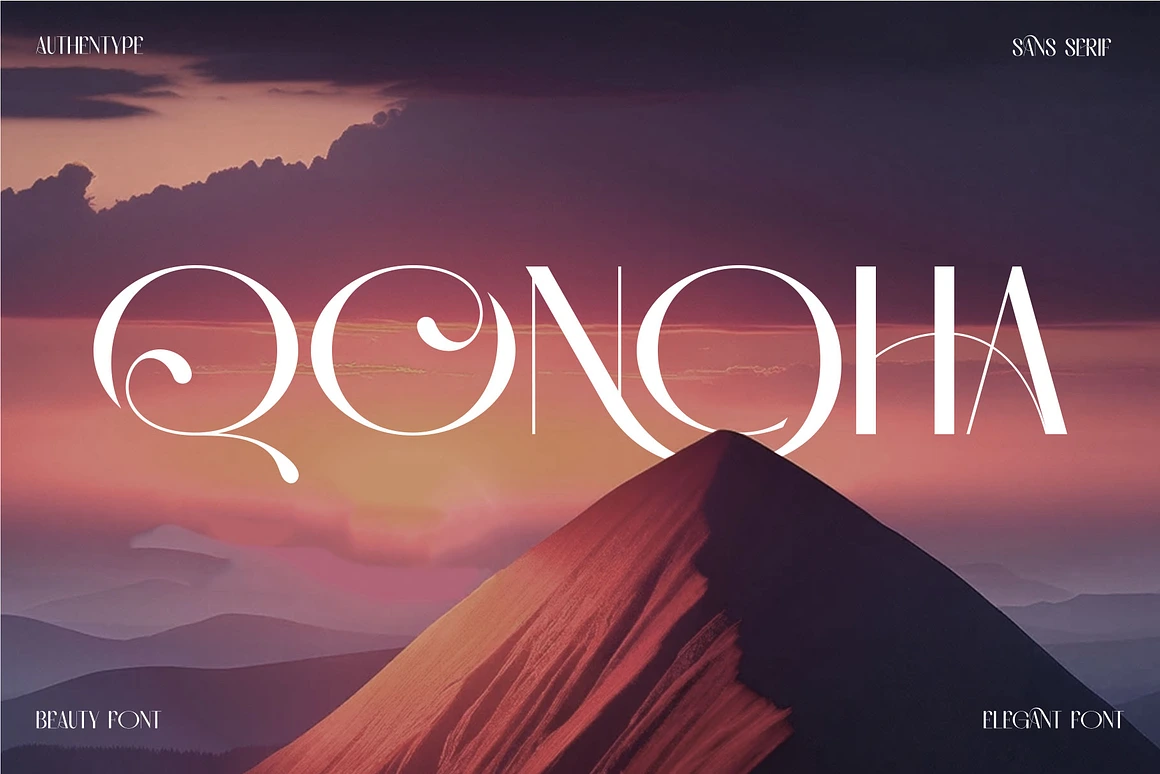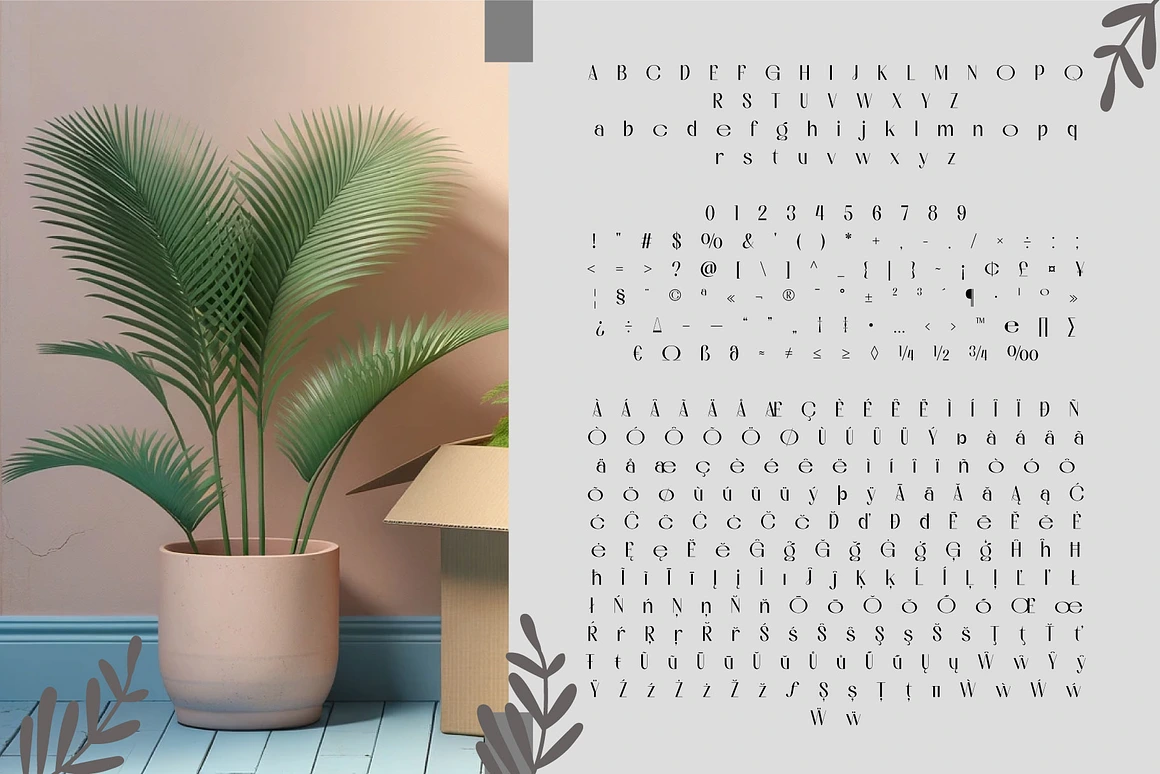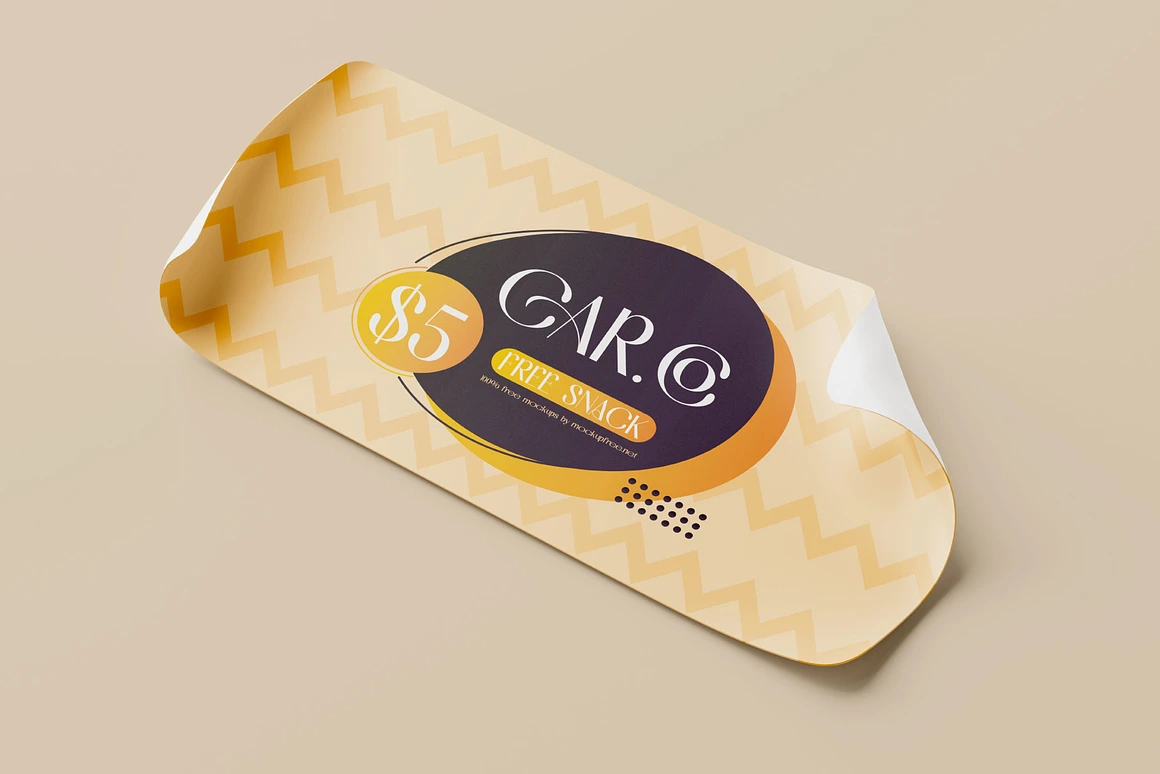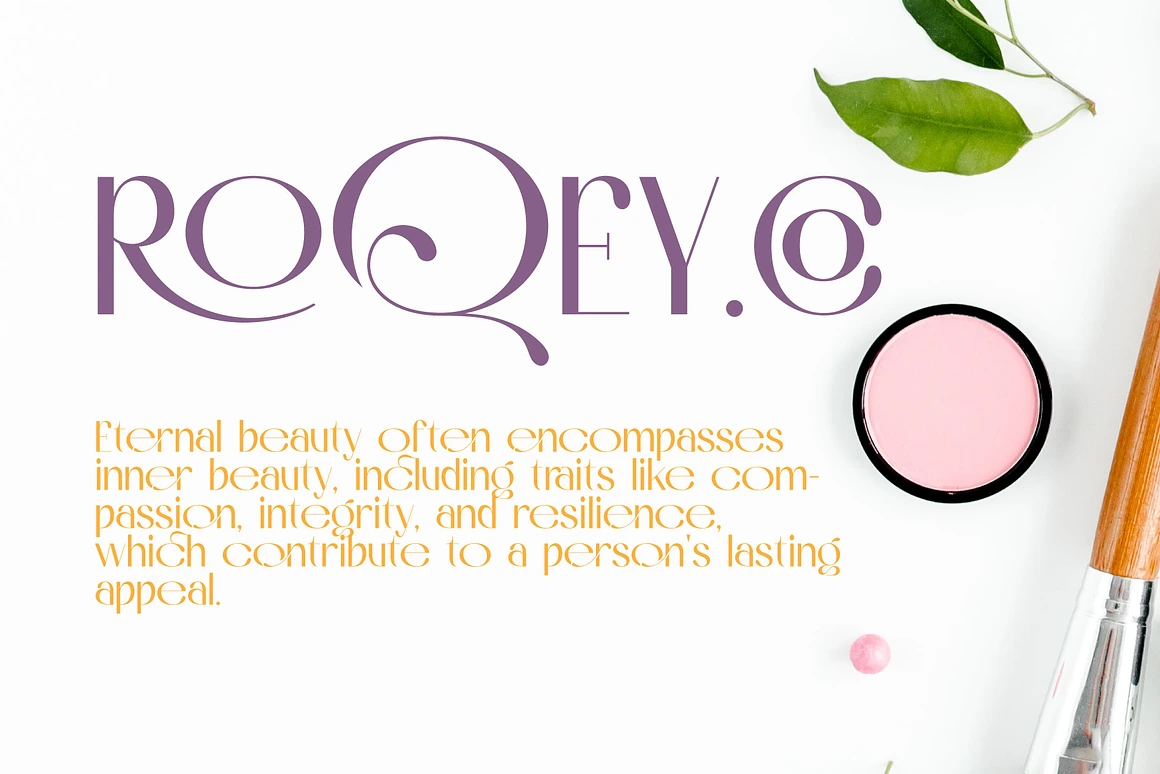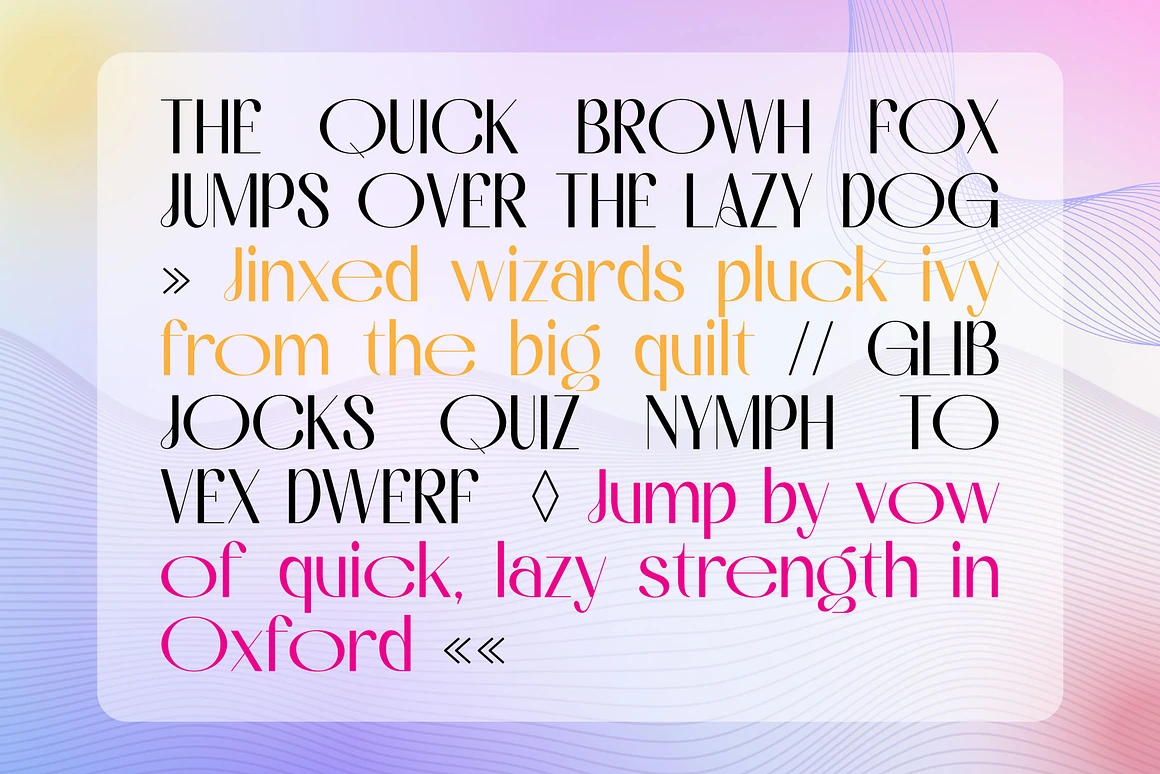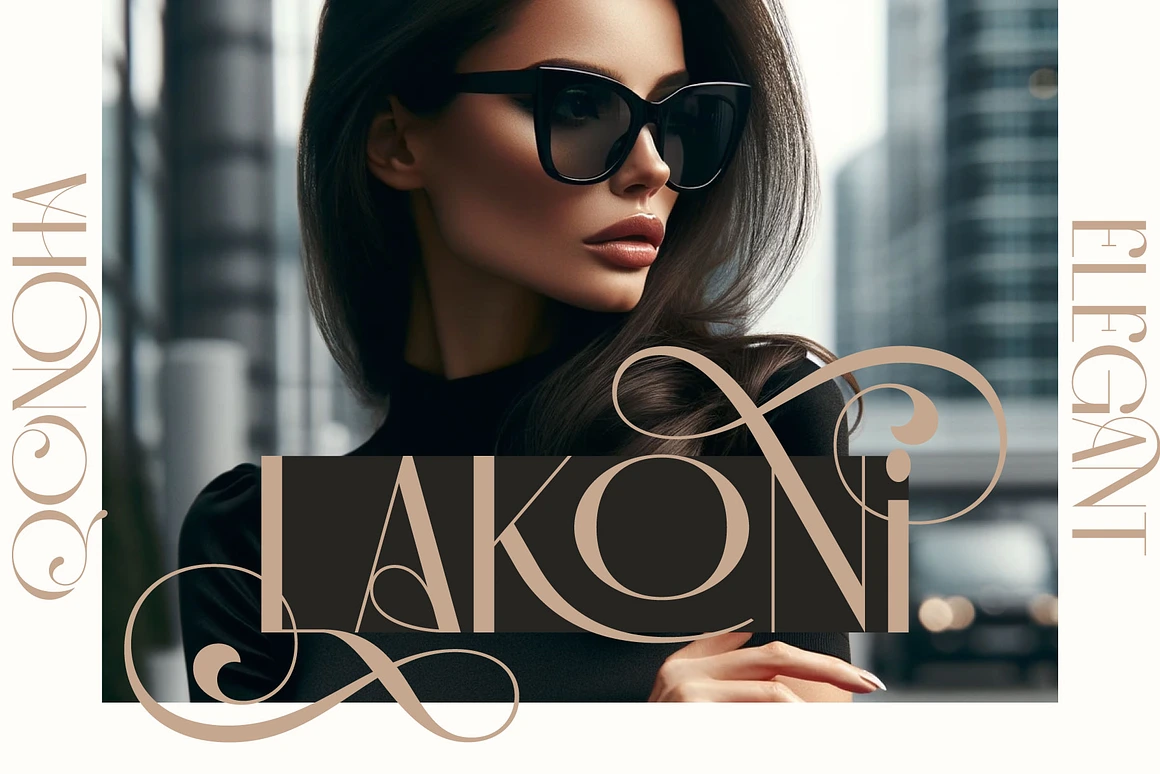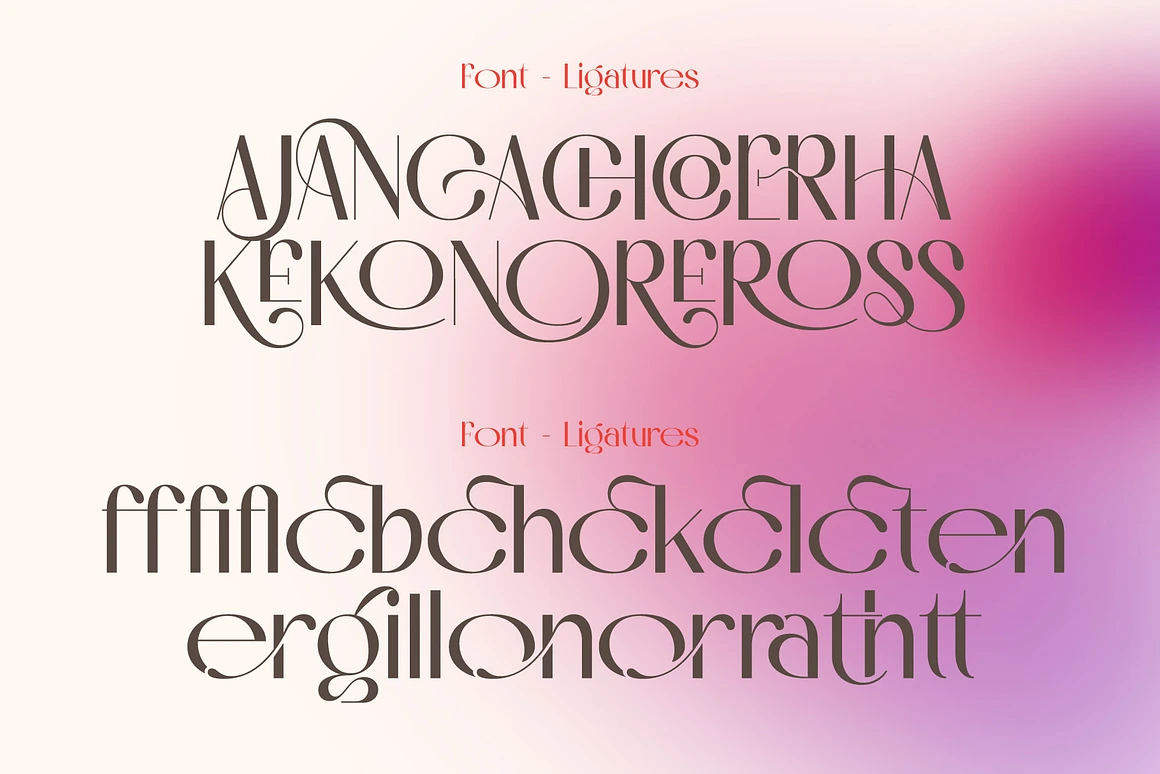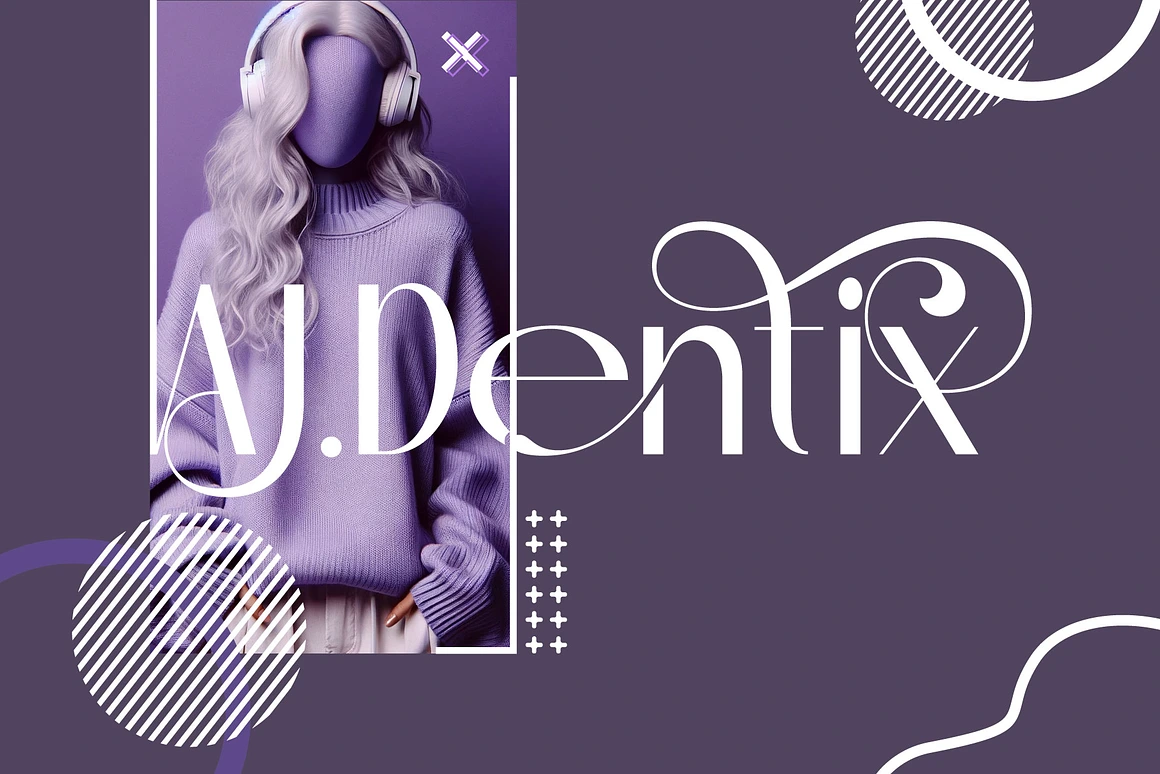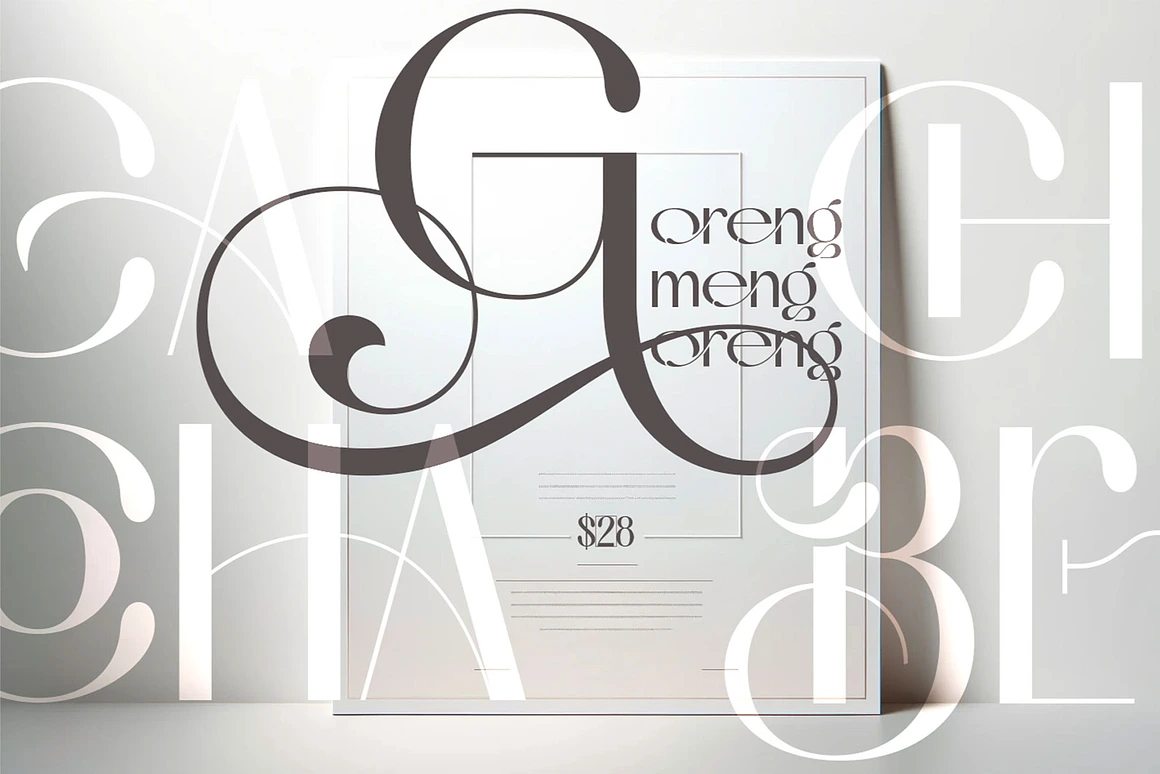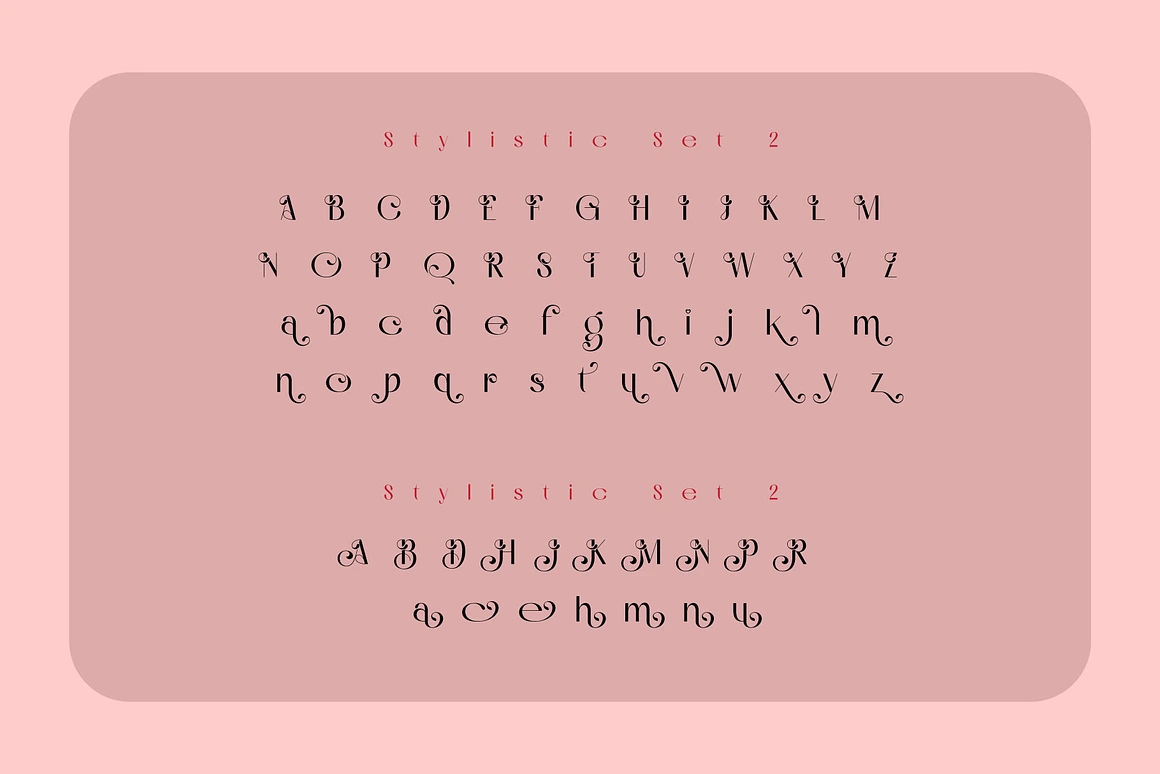
Qonoha A Simple Elegant Font
Qonoha
Qonoha A Simple Elegant Font is a beautifully crafted typeface that combines the essence of elegance and simplicity.
Designed with attention to detail, this font features unique curves and clean lines that embody a modern aesthetic while maintaining a touch of classical beauty. Perfect for branding, editorial designs, and sophisticated advertising, Qonoha brings a fresh, contemporary look to any project.
Its versatile nature allows it to fit seamlessly into a wide range of design contexts, from luxury branding to minimalist compositions. Embrace the beauty of Qonoha font and elevate your design work to new heights.